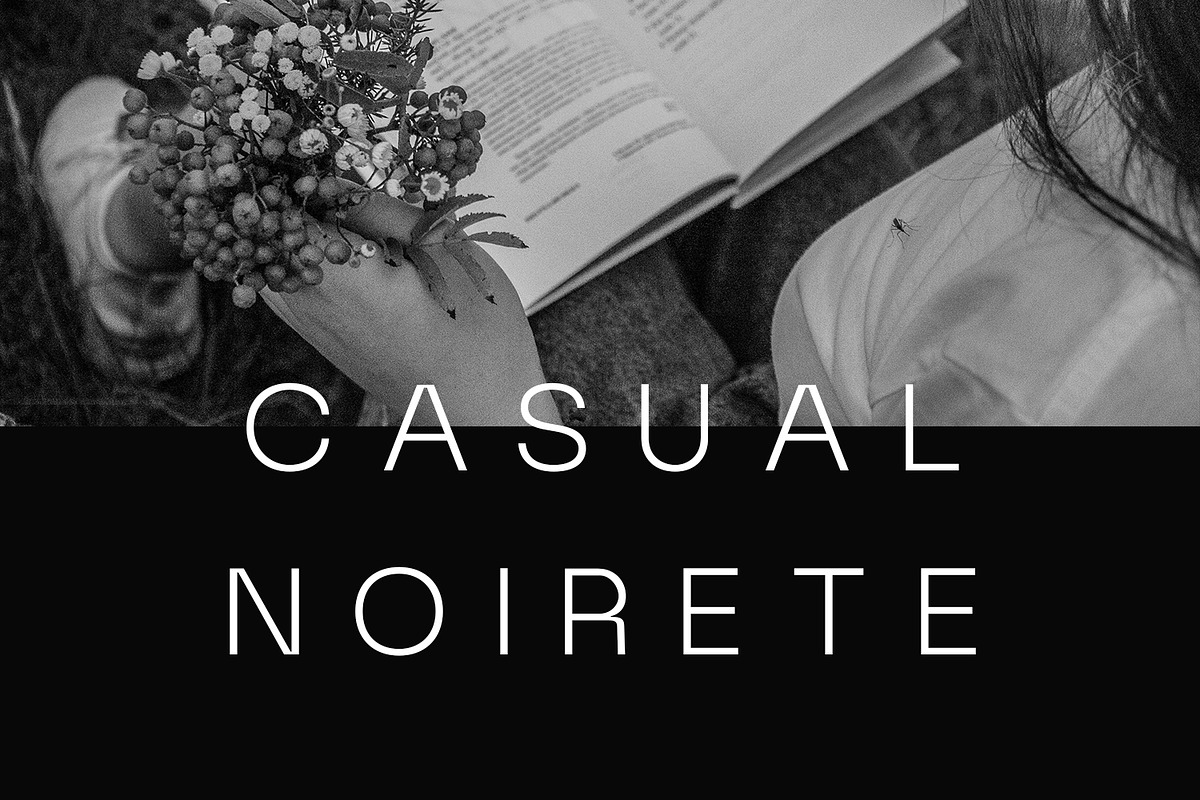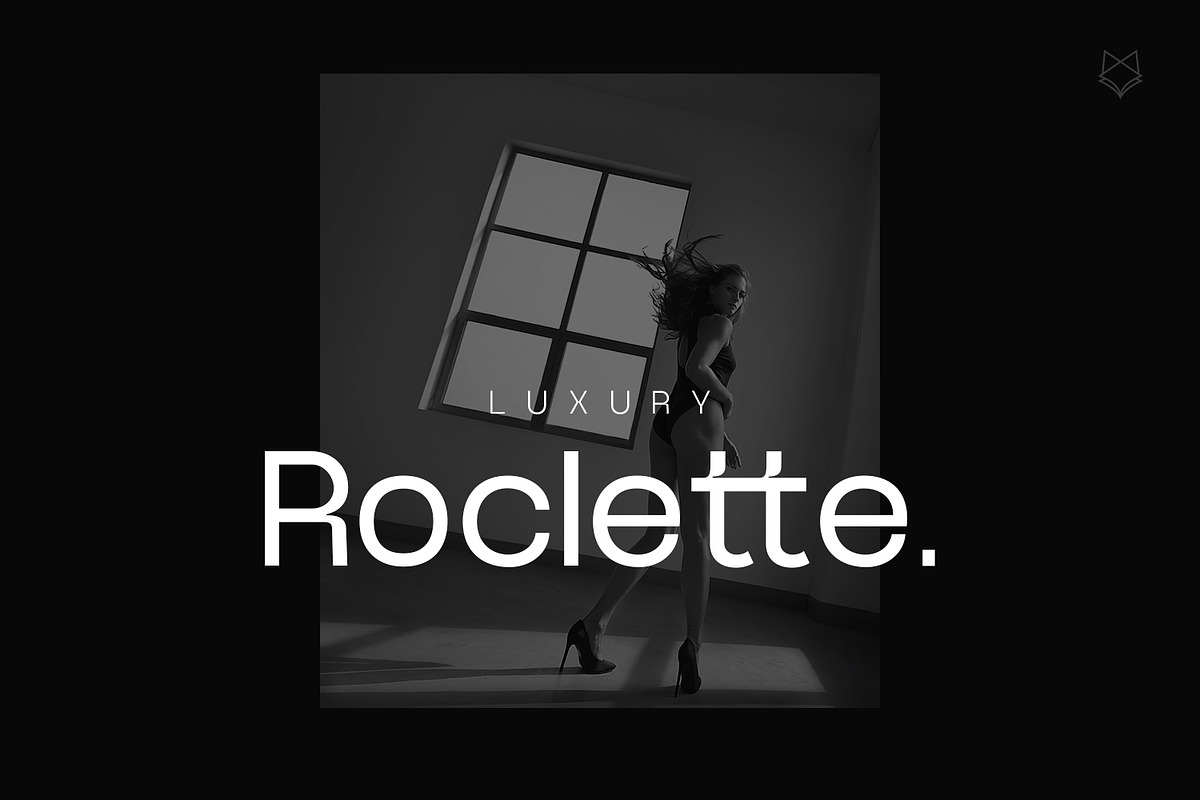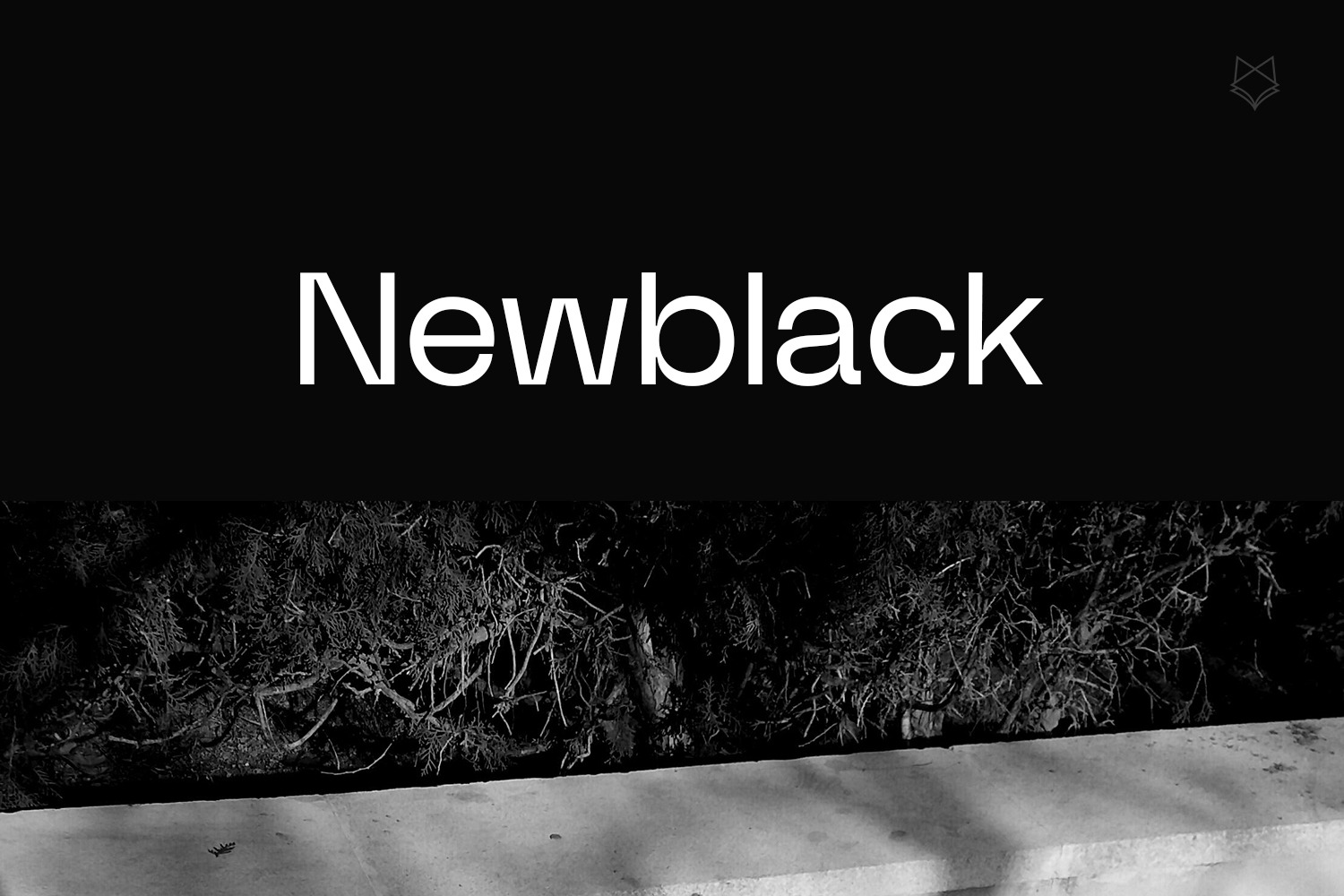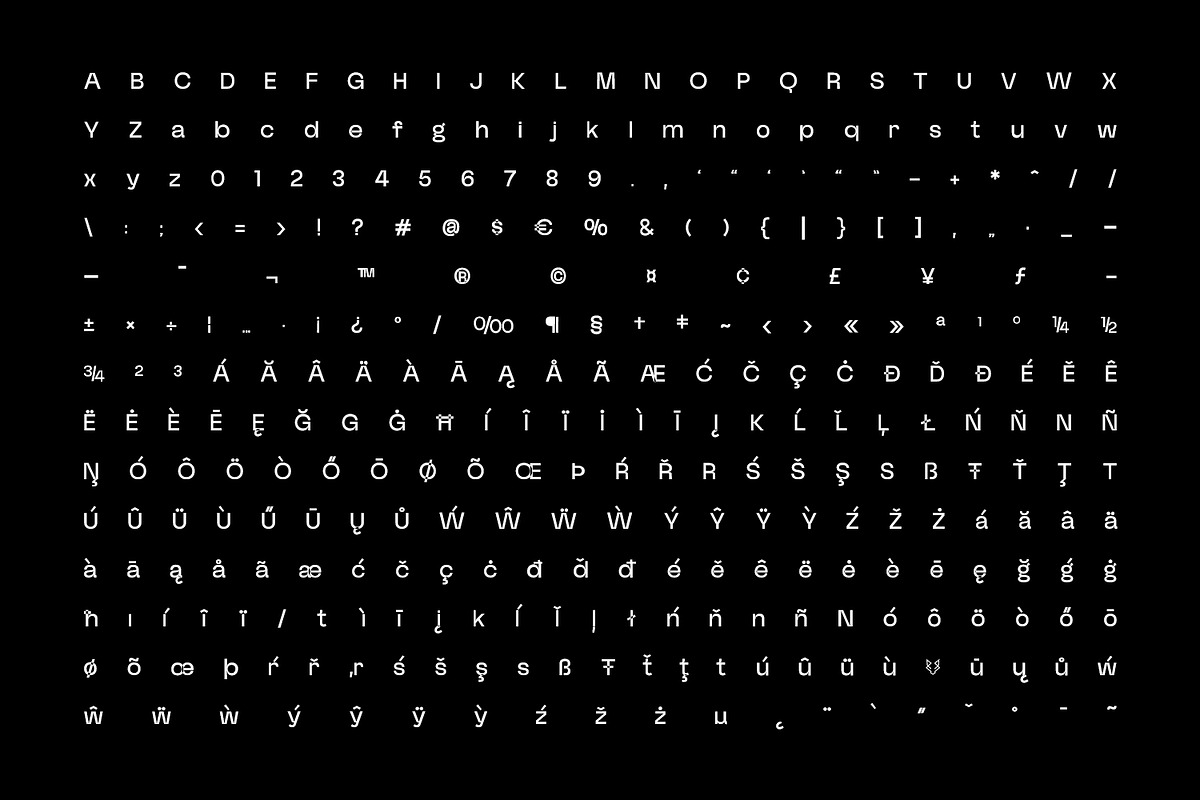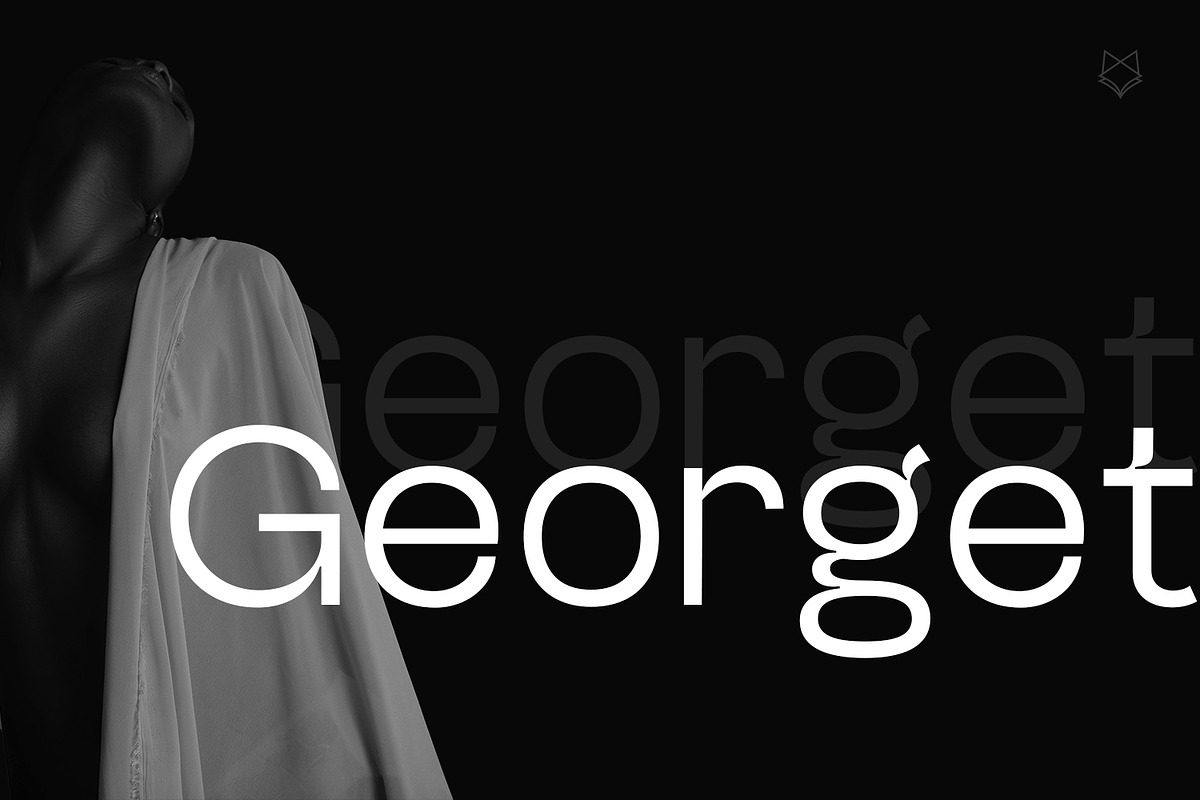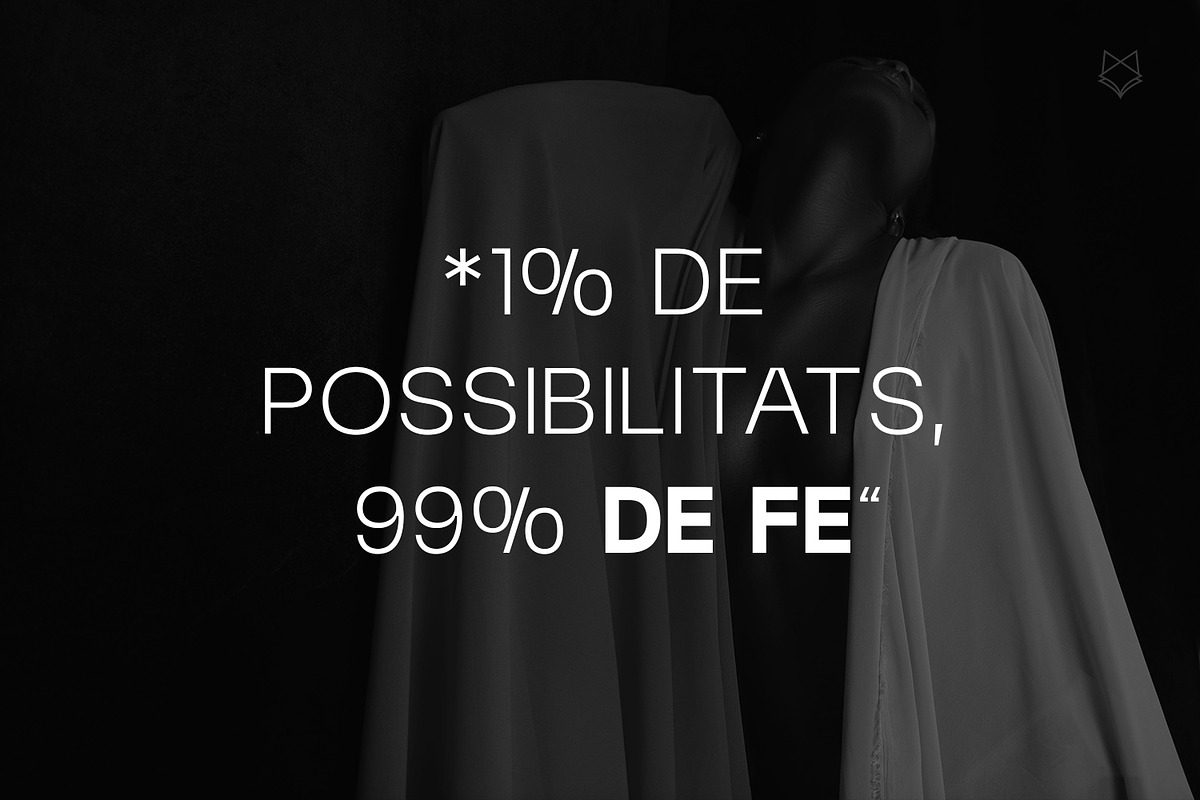
NewBlack Typeface
Introducing NewBlack Typeface, a meticulously crafted modern sans-serif typeface perfect for a wide range of design projects. With 07 versatile weights, NewBlack excels in creating striking headlines, captivating posters, and sophisticated branding materials. Its clean lines and contemporary style make it an ideal choice for magazine covers, logo designs, paragraph texts and more.
- 07 Weights are included.
- 333+ Glyphs.
- Perfect for Branding, Headlines, Poster, Logos
Elevate your projects with the elegance and versatility of NewBlack, the perfect font for any modern design.